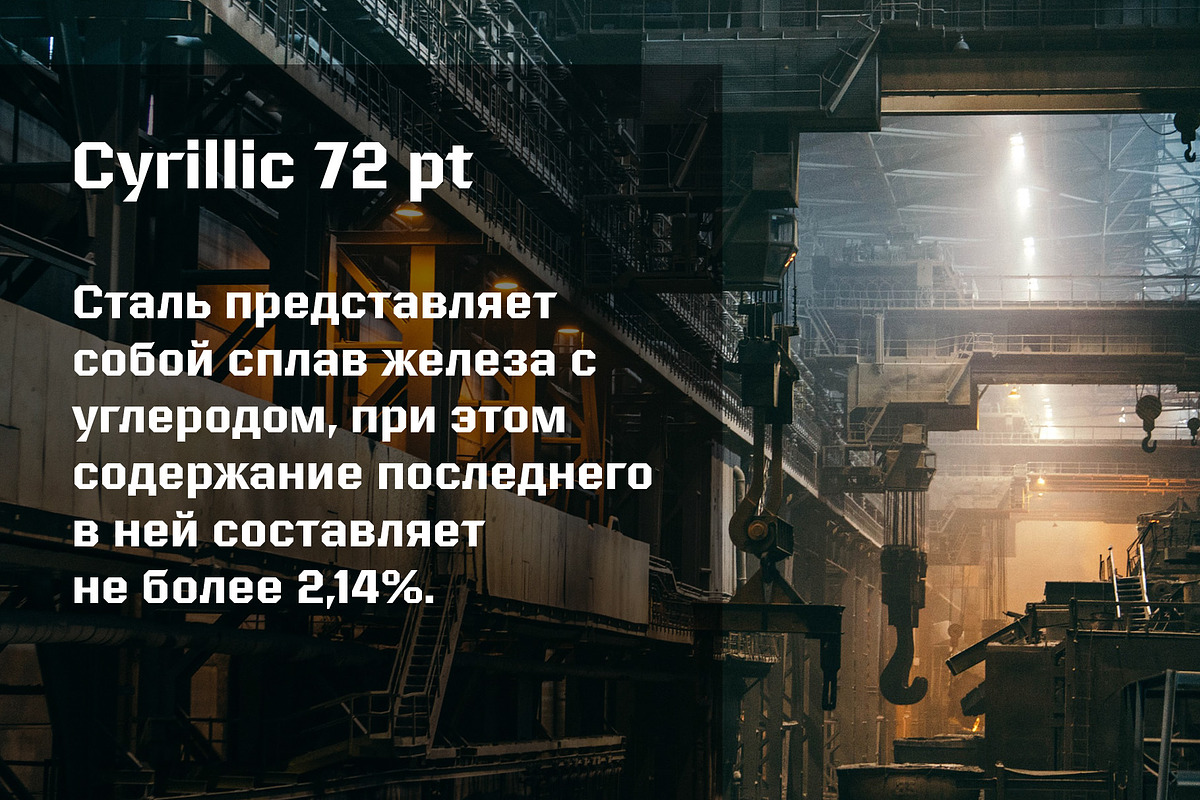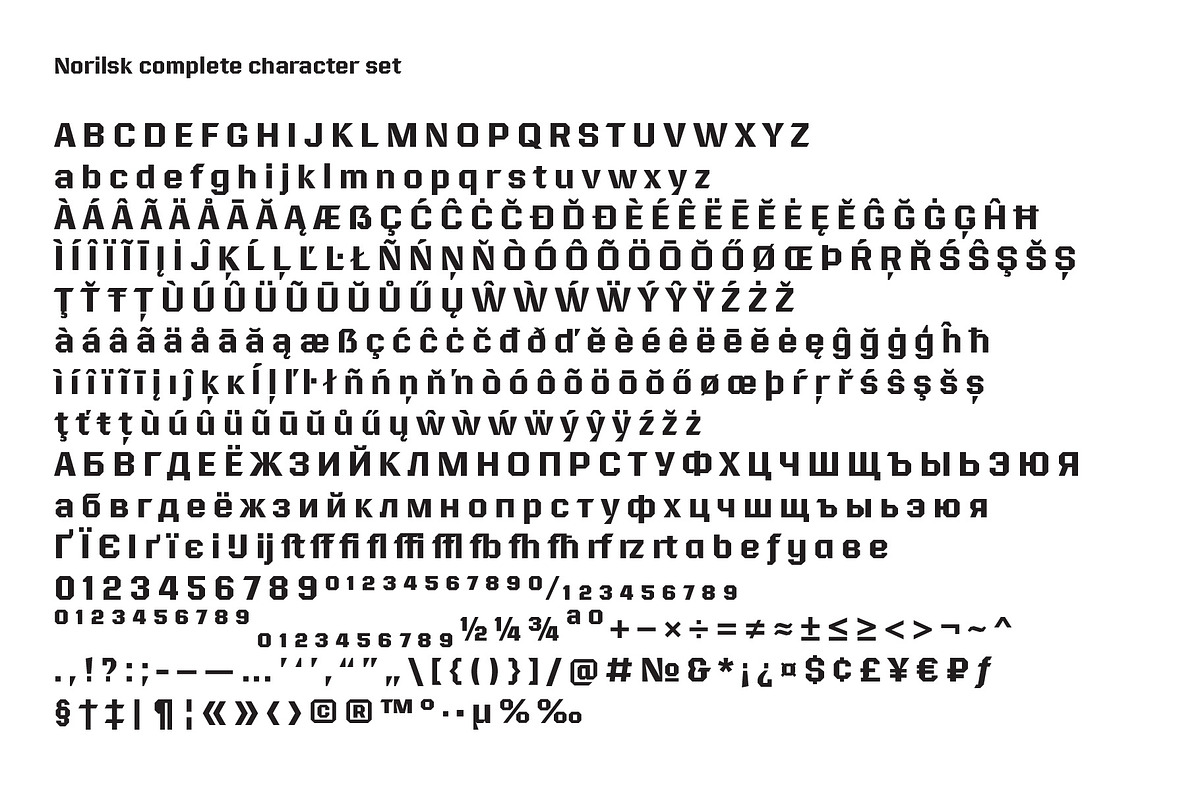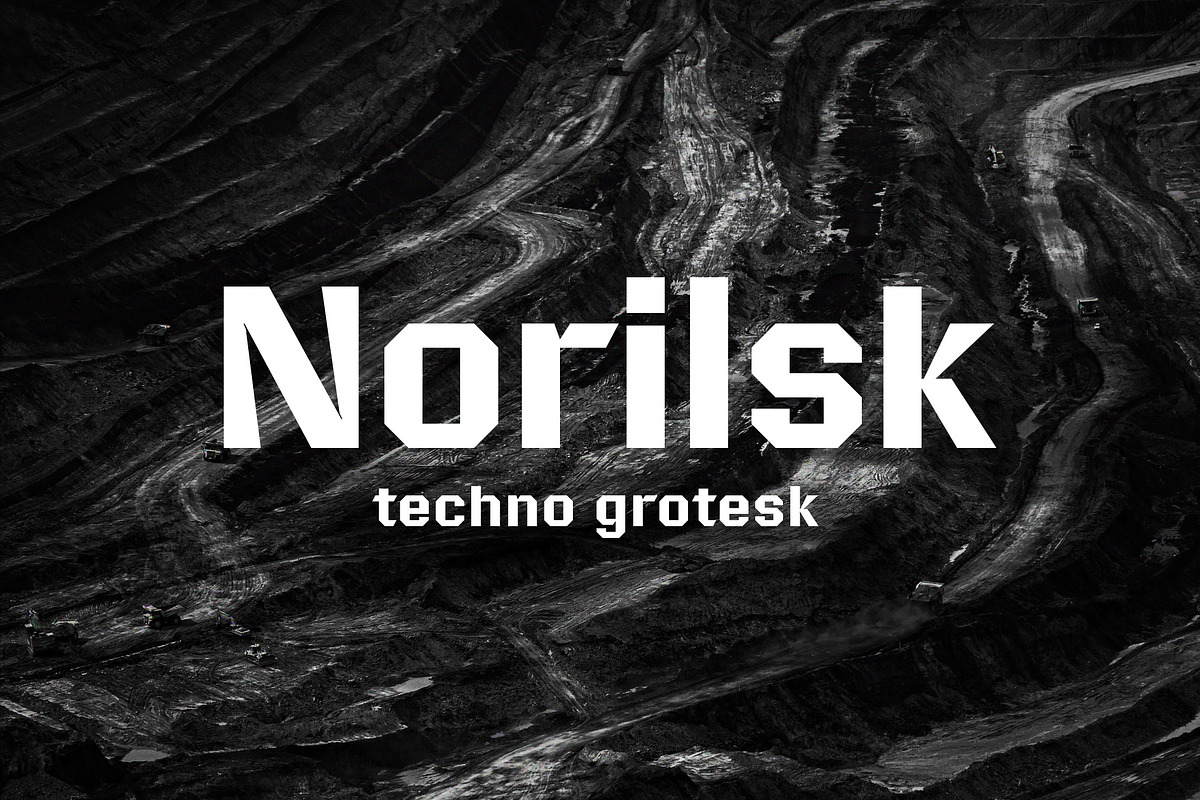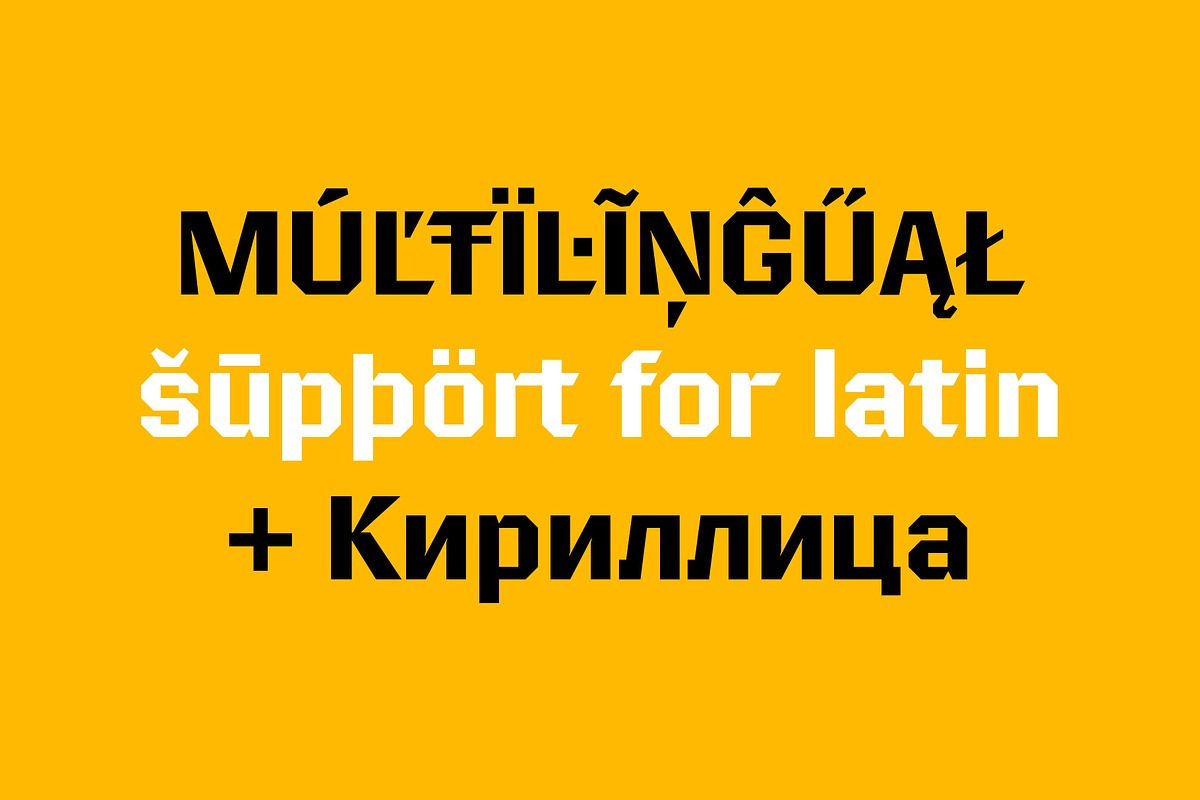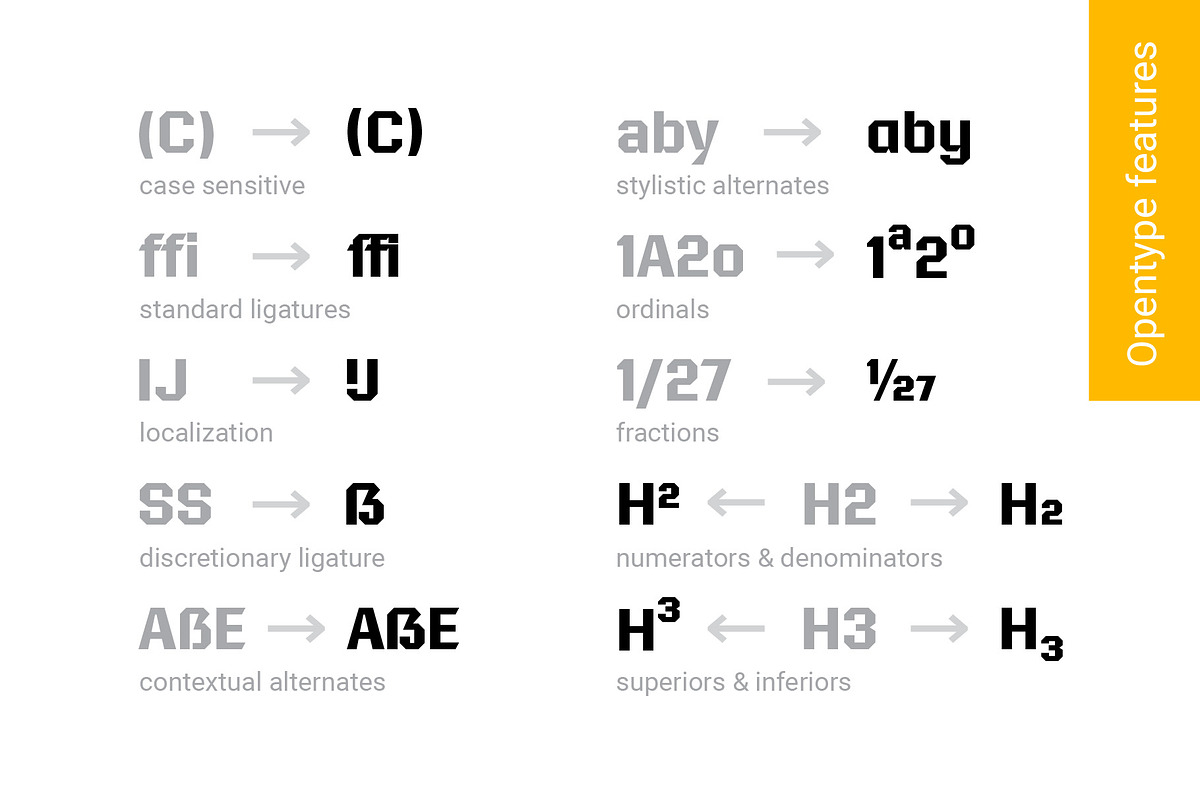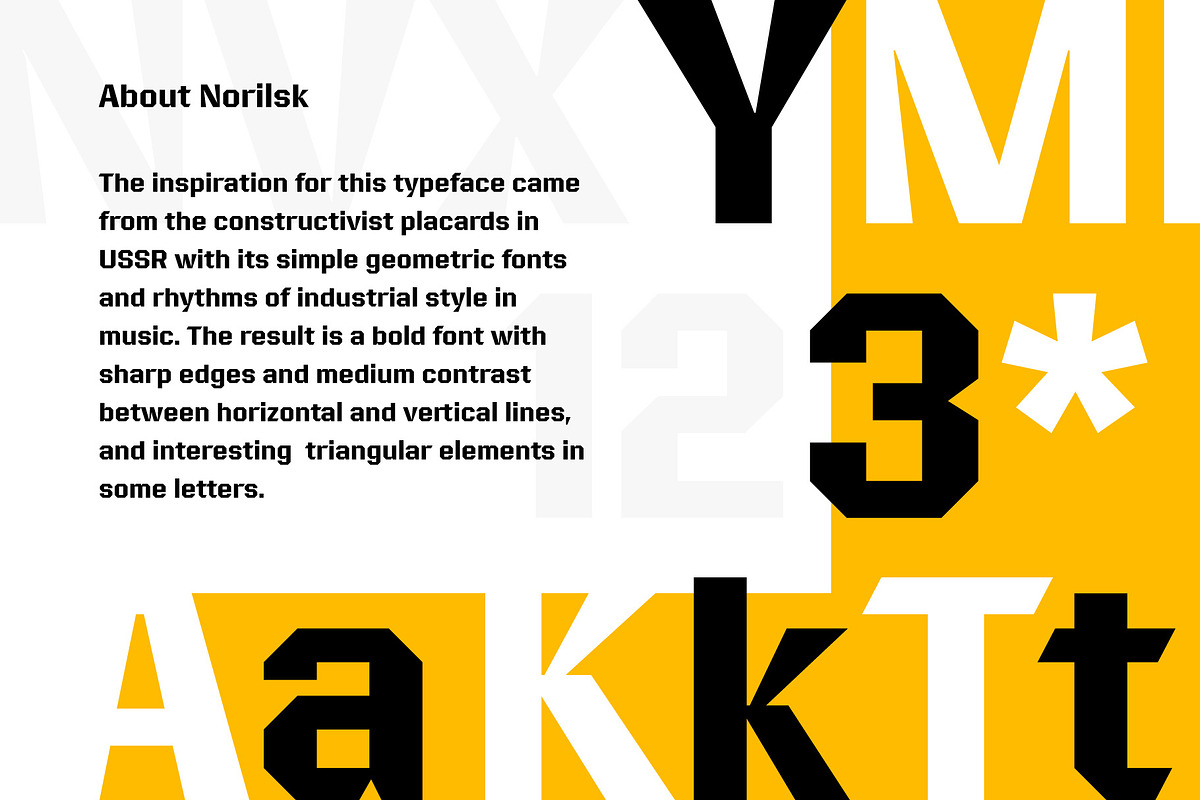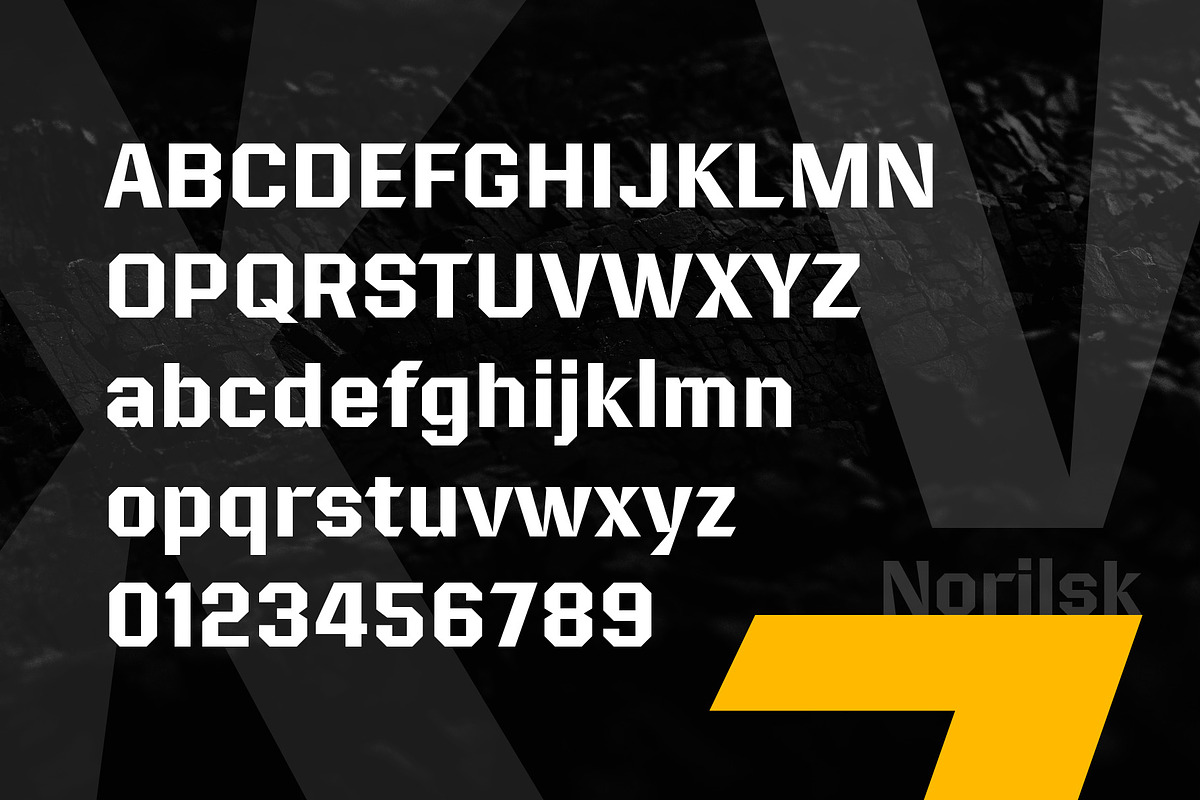
Norilsk font
Norilsk is a geometric sans serif font with over 500 glyphs and extensive Latin and Cyrillic languages support. It inspired by constructivist placards with simple geometric forms and rhythms of industrial style in music. The result is a bold font with sharp edges and medium contrast between horizontal and vertical lines, and interesting triangular elements in some letters.
Norilsk font includes OpenType features:
Case-sensitive punctuation
Stylistic & contextual alternates
Standard and discretionary ligatures
Superscript & subscript numbers
Numerators & denominators